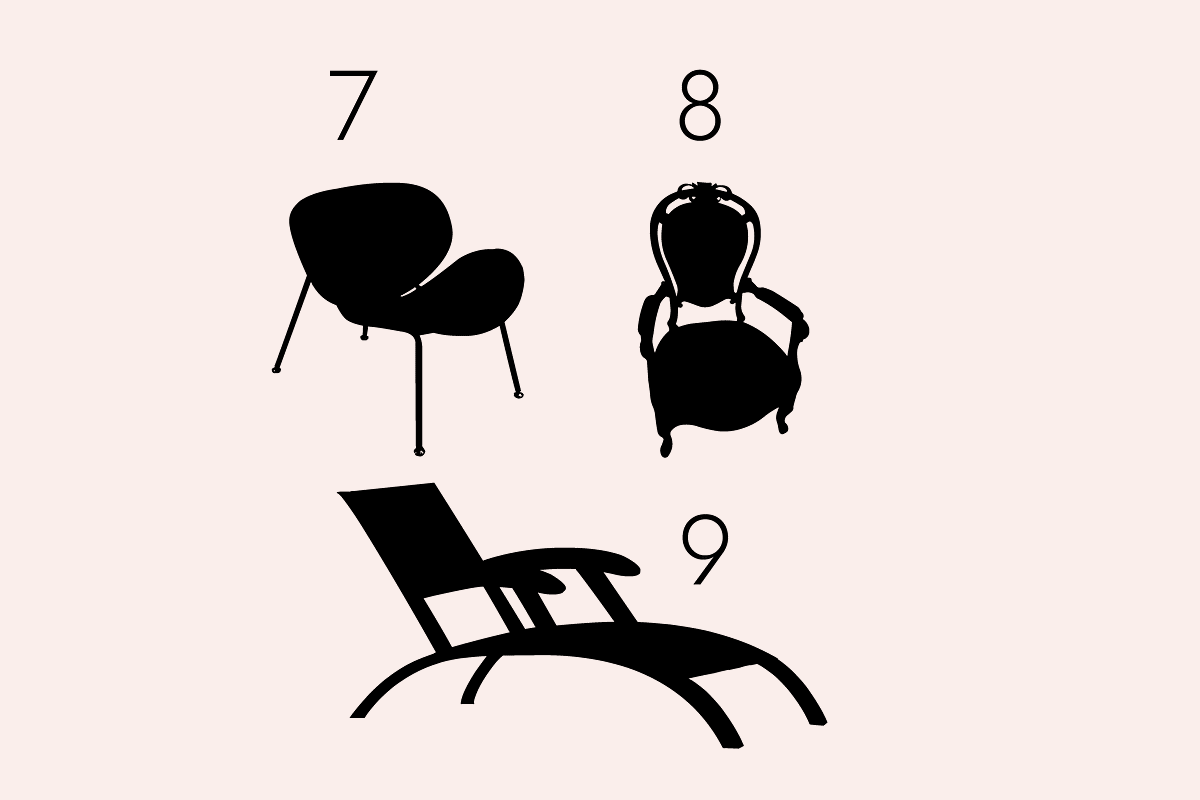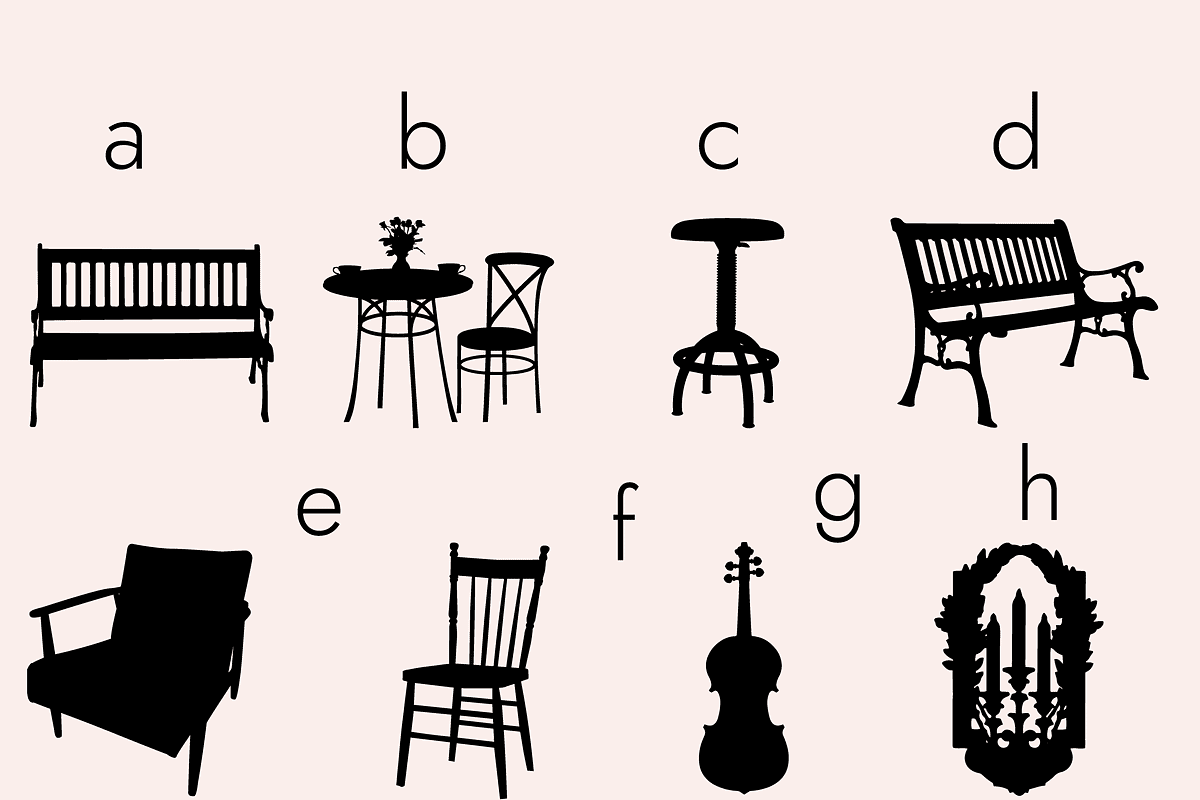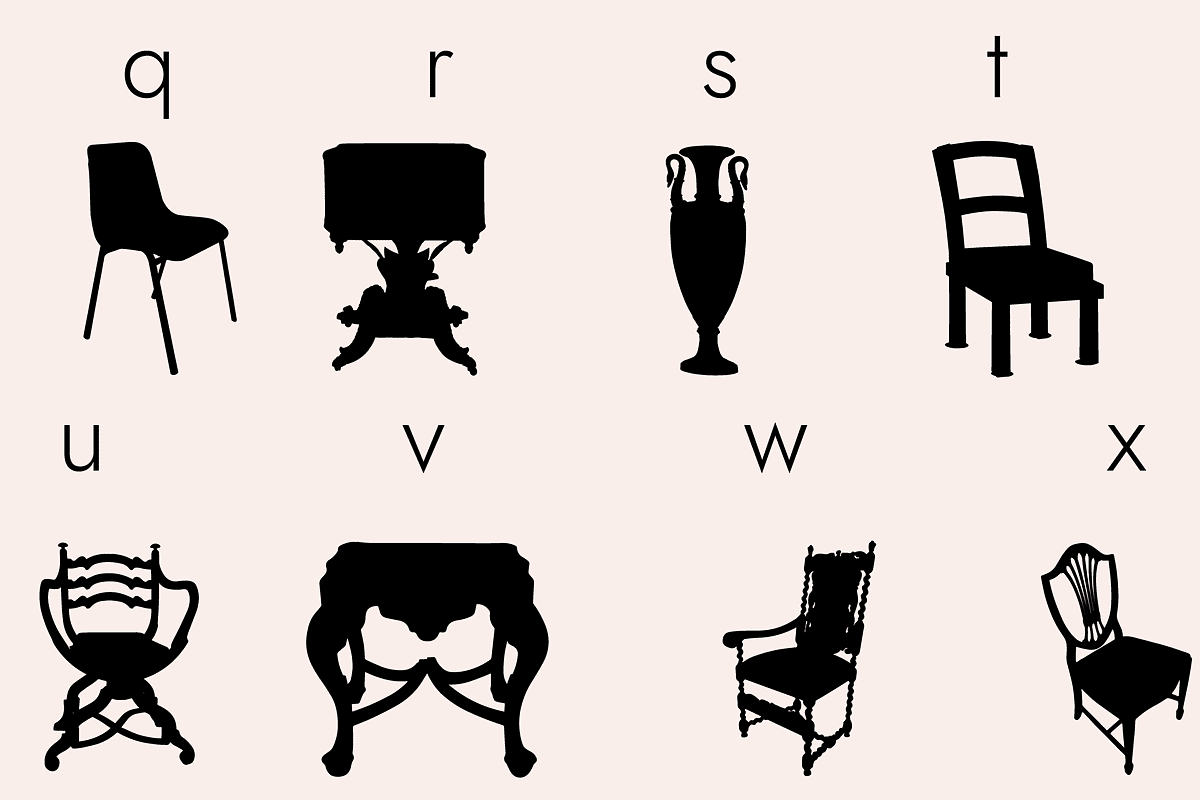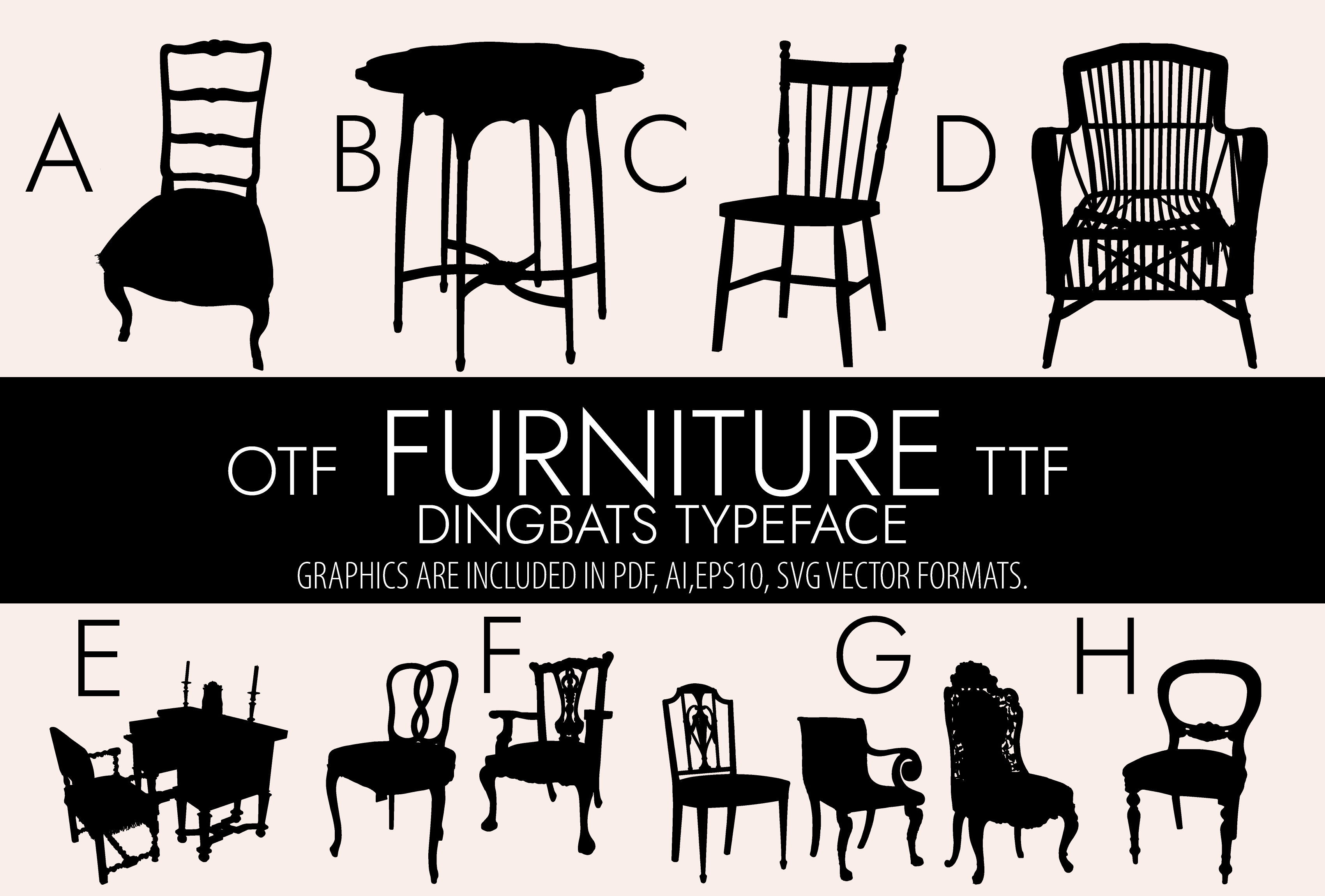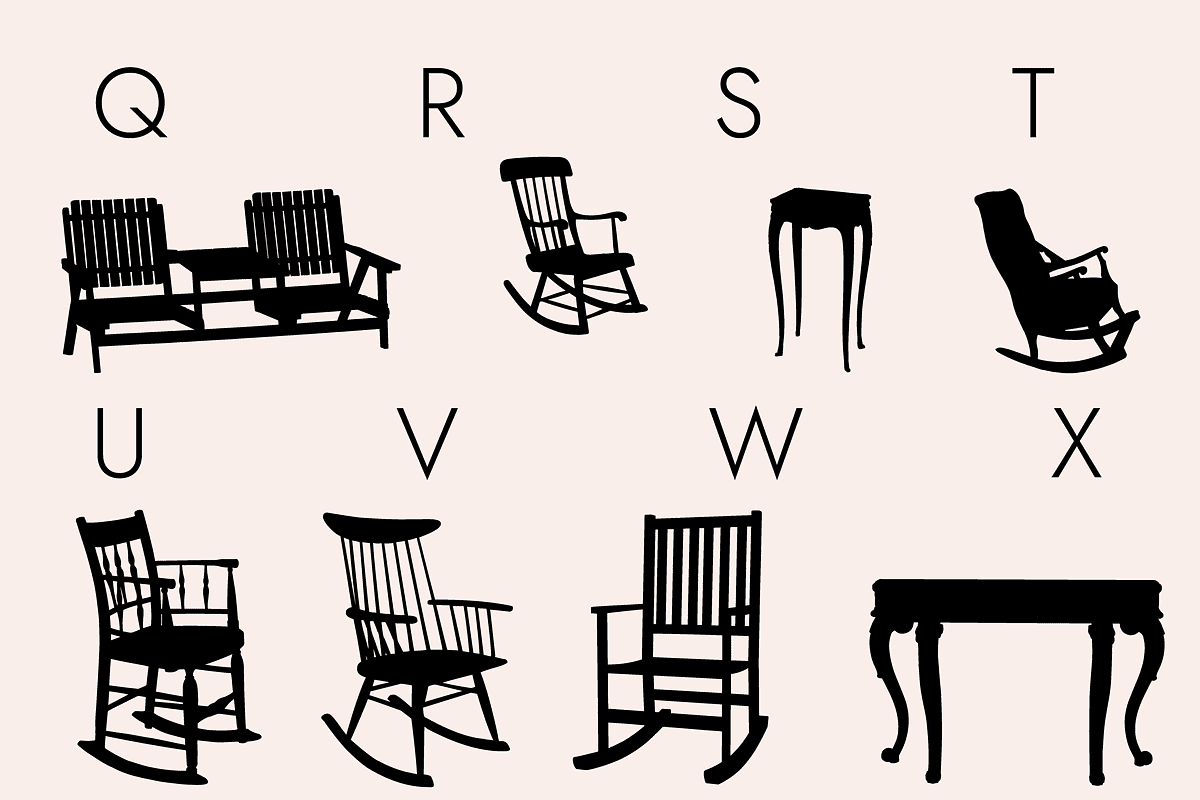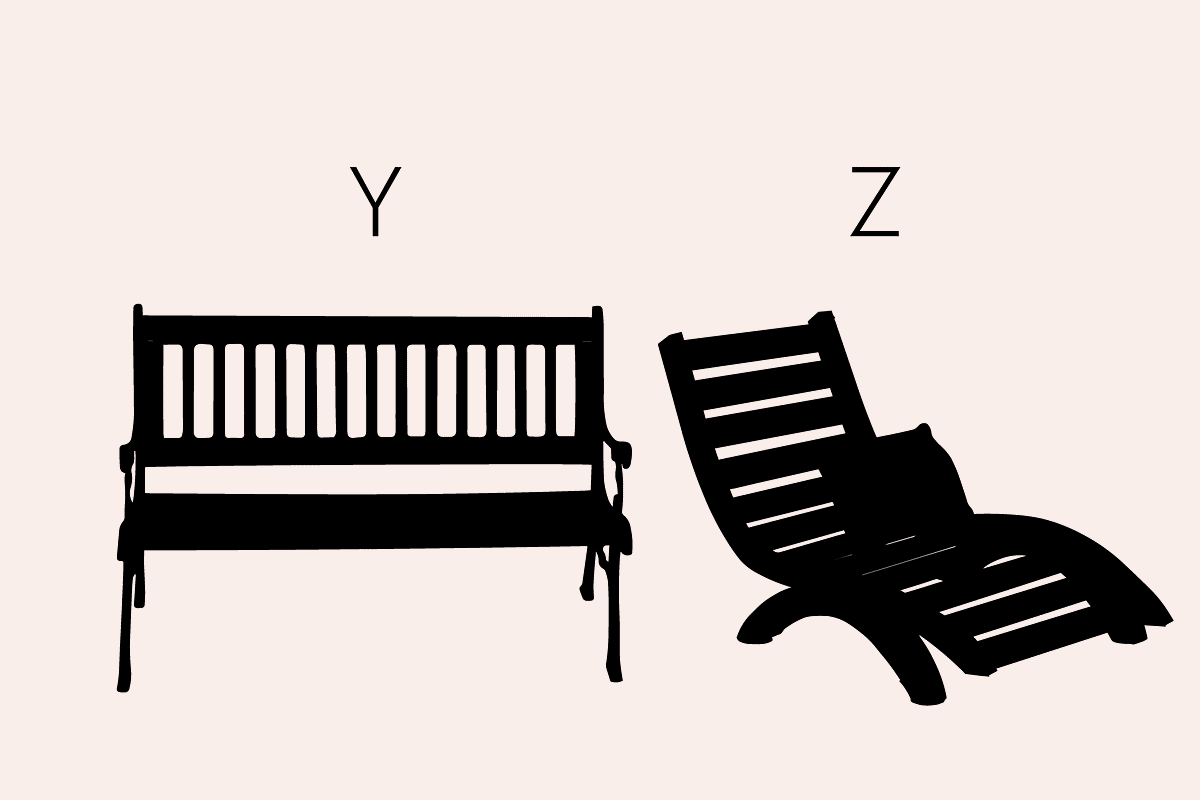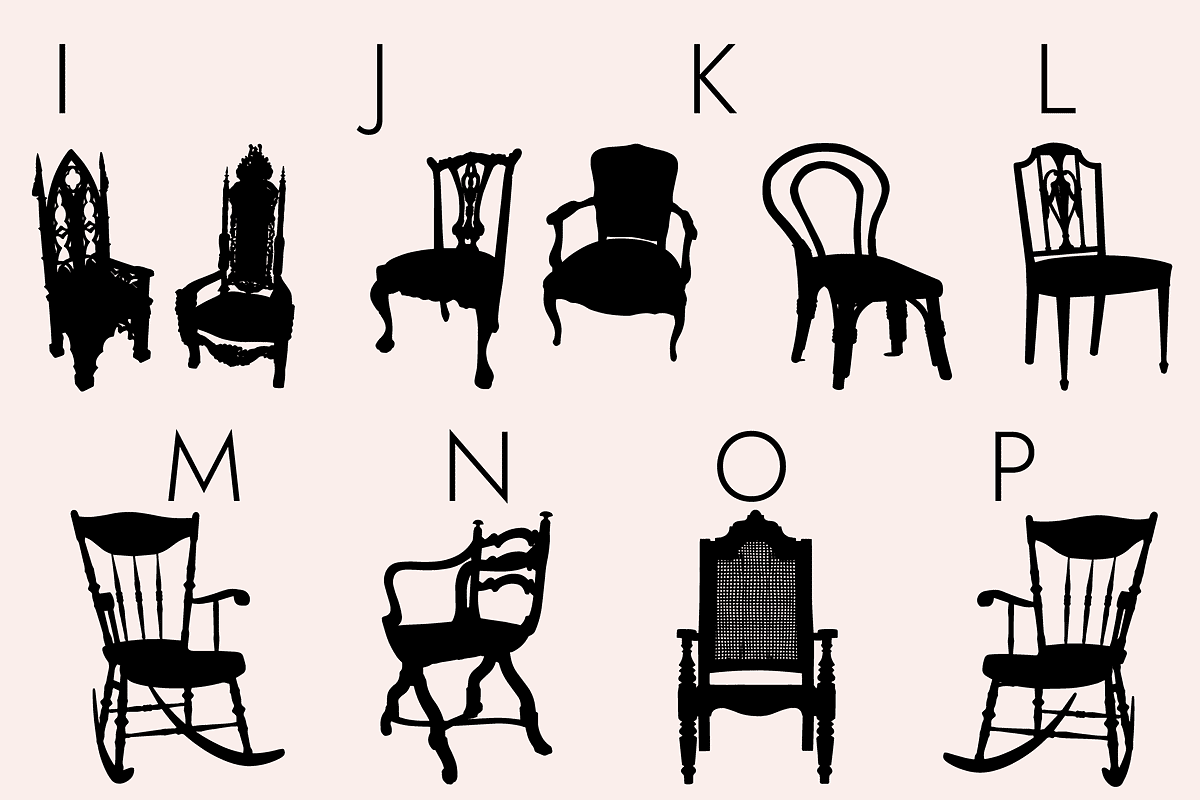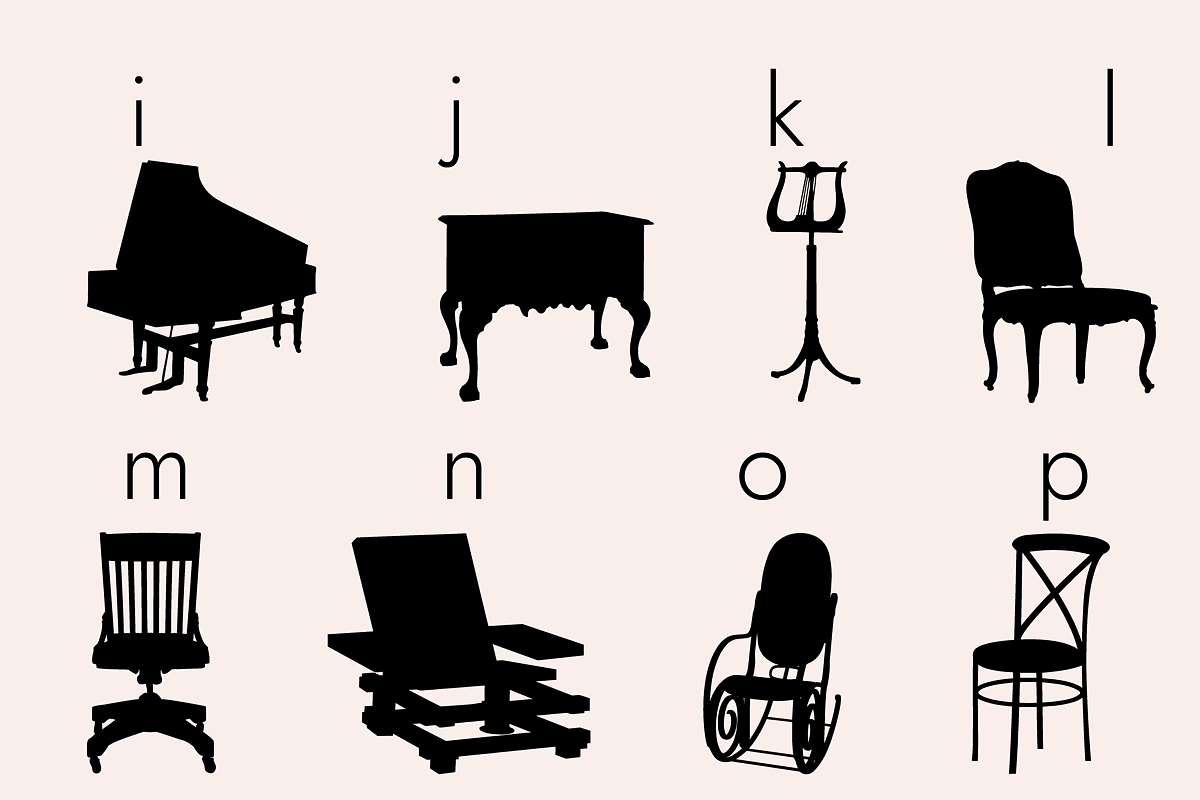
Furniture Dingbats Font
Furniture is a useful dingbats font especially crafted to give you various possibilities to create any product! Let your imagination flow, and create an amazing design with Furniture Dingbats!